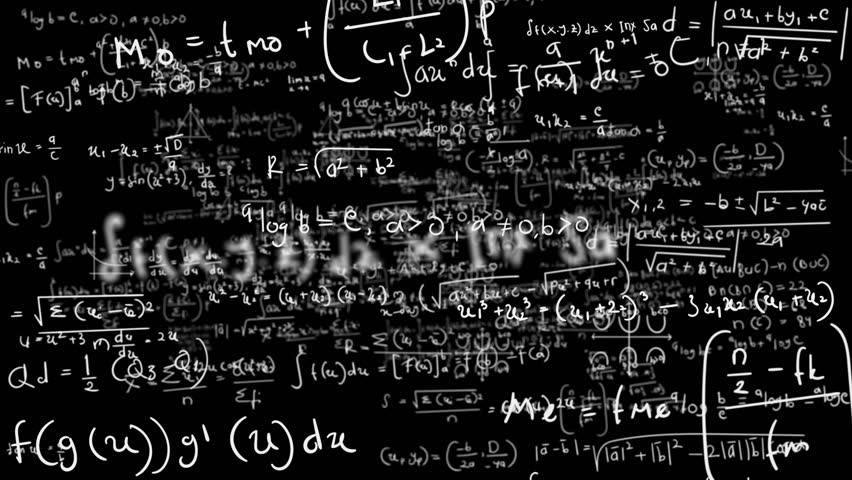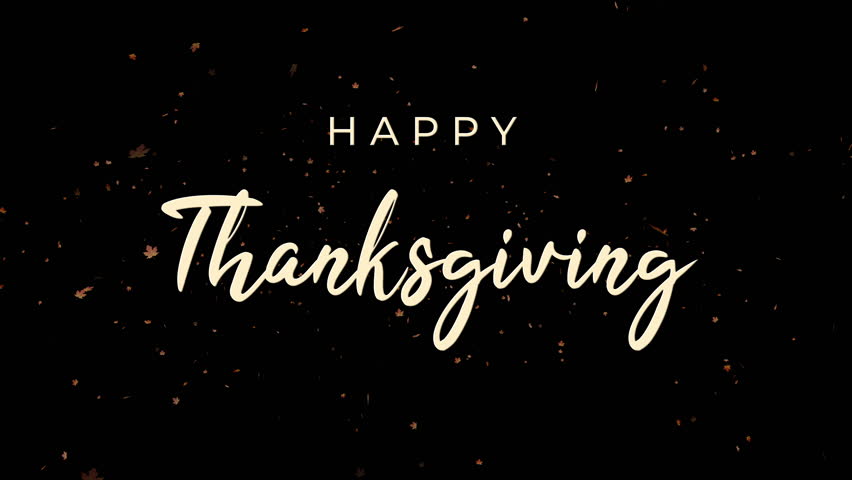
This is prerendered caligraphic Font with Alpha Chanel that you can use for any purpose. It can be used in producing Titles, Openers, Lower Thirds, Intros etc. It can be exellent applied for creating Wedding or Christmas Slide Show. Also you can create Hand Writting message, Wedding Invitation or even Ancient Manuscript. Project contains full alphabet of animated letters, numbers and punctuations with Alpha Channel. Easily adjust animation speed and duration (60 frame per sec). Detailed tutorial included. No plugins required. Just drag and drop. Resolution each letter is 1000×1000